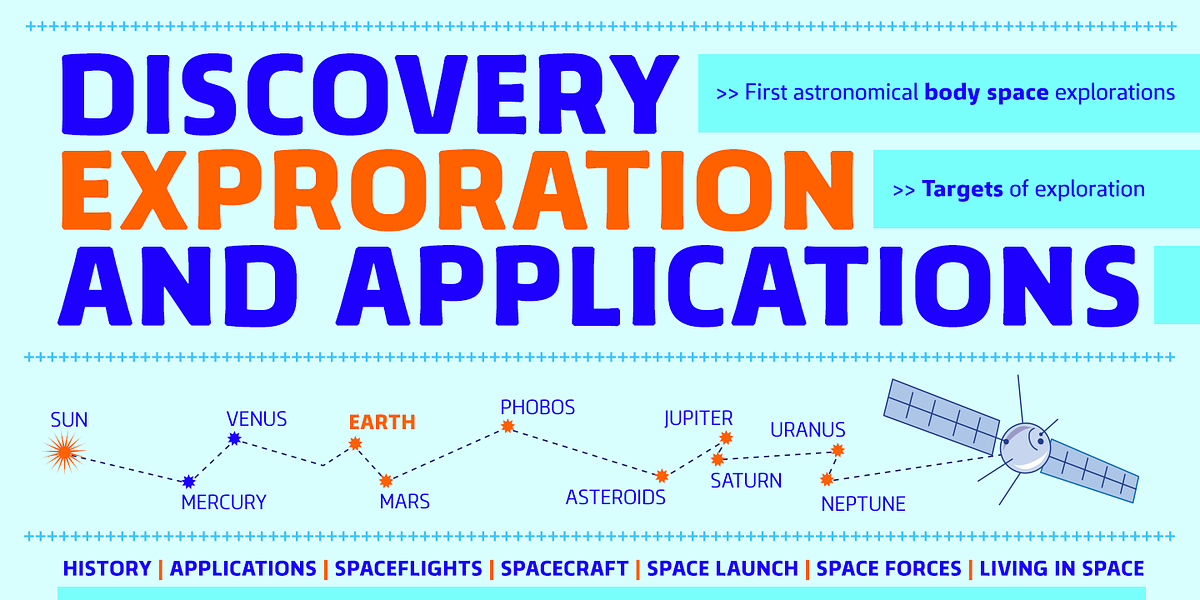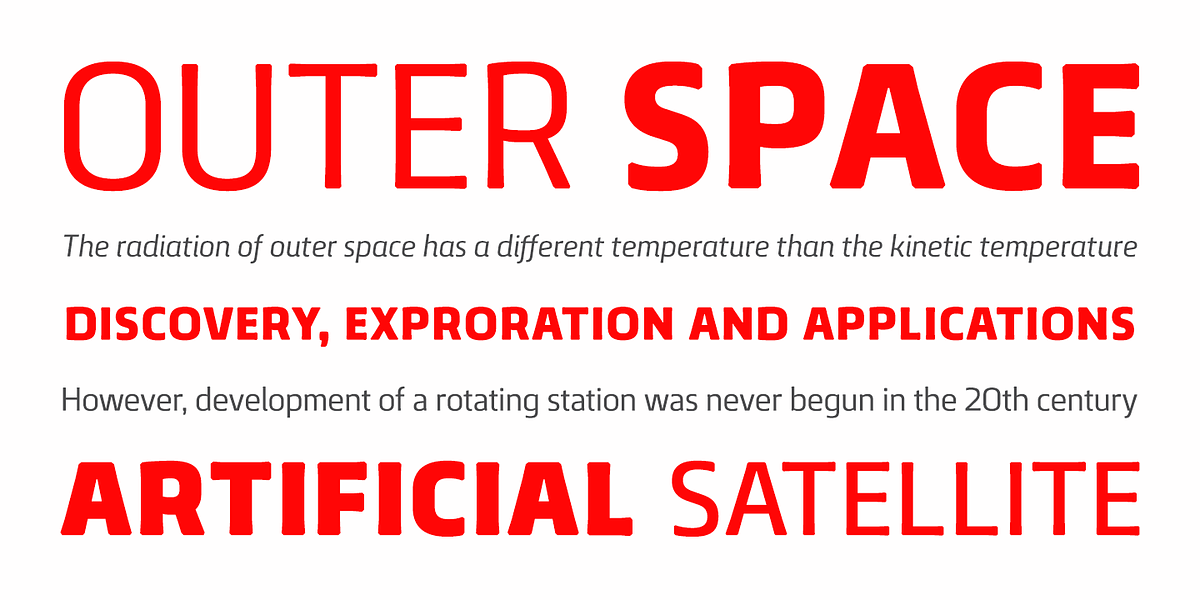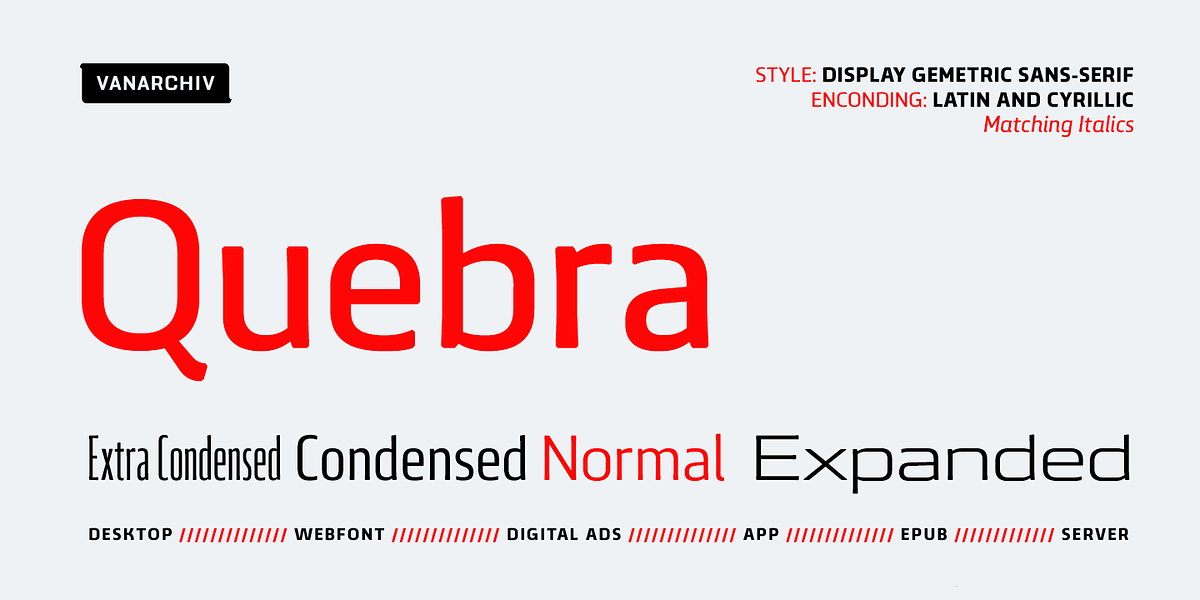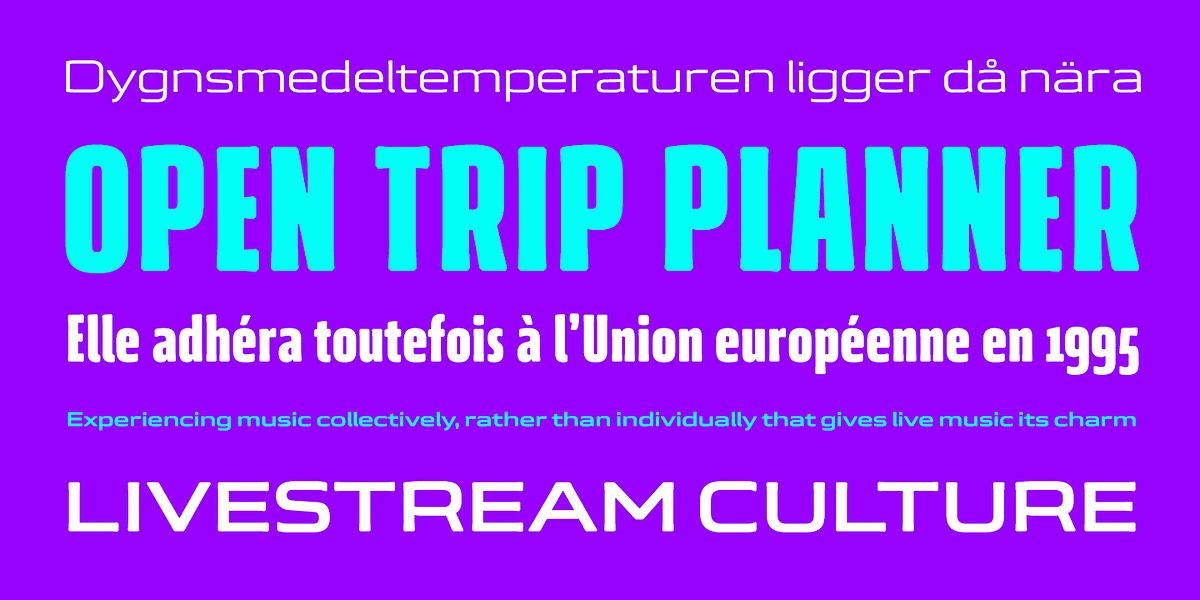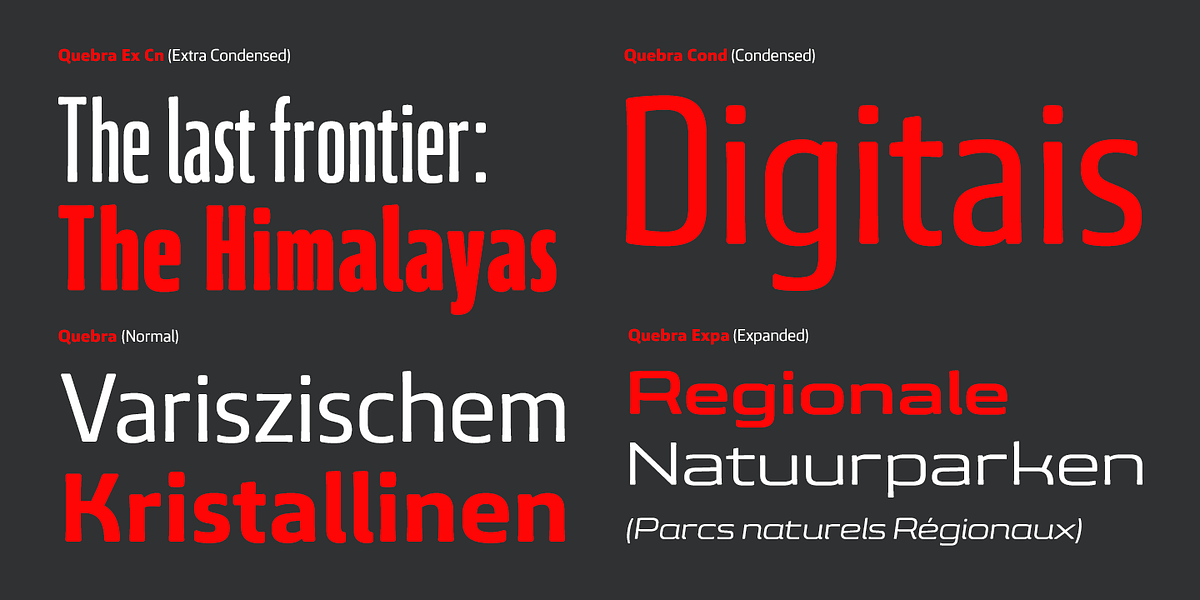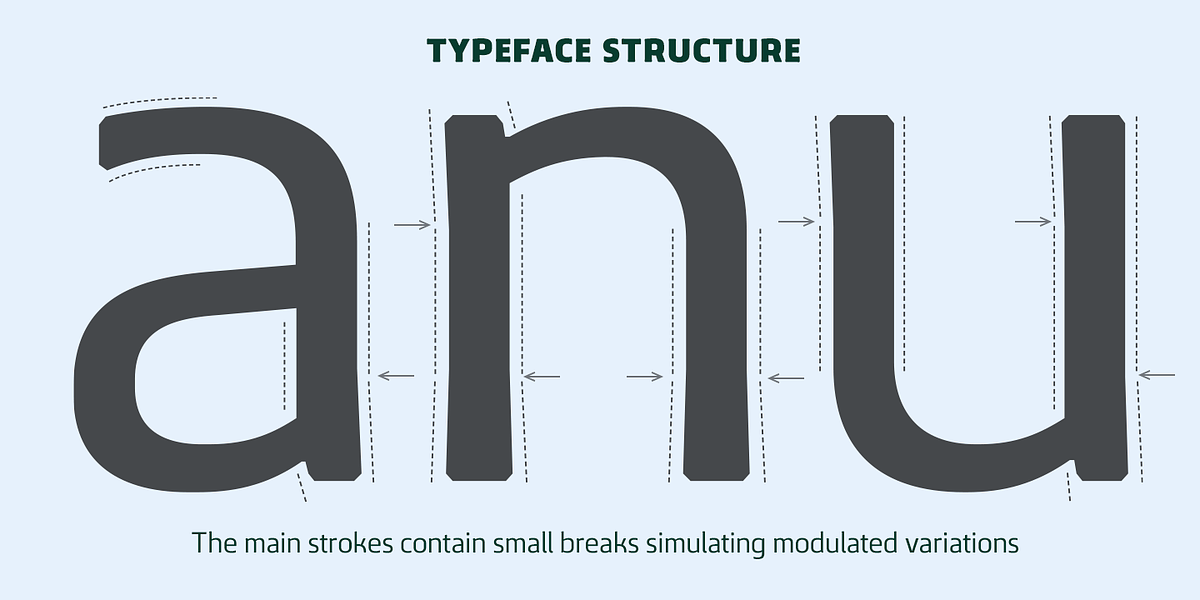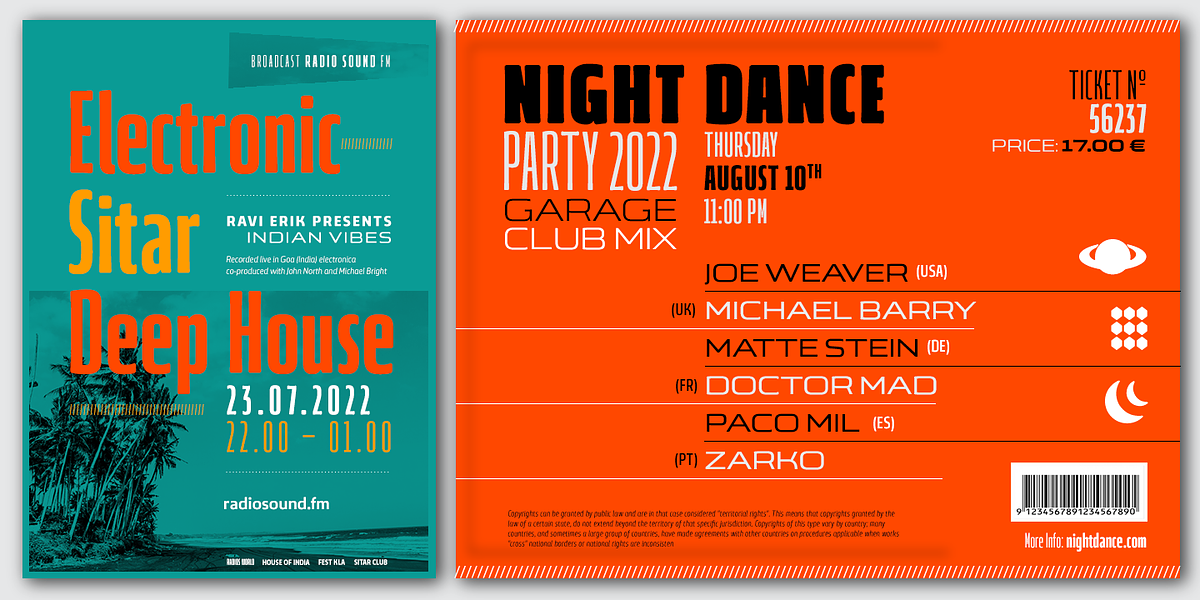
Quebra
Quebra is a modern geometric sans-serif font family that offers a wide range of weights and widths. Its main characteristic is the subtle breaks within the strokes, creating a modulated effect reminiscent of humanist handwriting. This feature is more pronounced at larger sizes, adding visual interest to headlines and display text. The font also includes a comprehensive set of characters for both Latin and Cyrillic scripts, along with ligatures, stylistic alternates, fractions, old-style figures, and tabular figures.